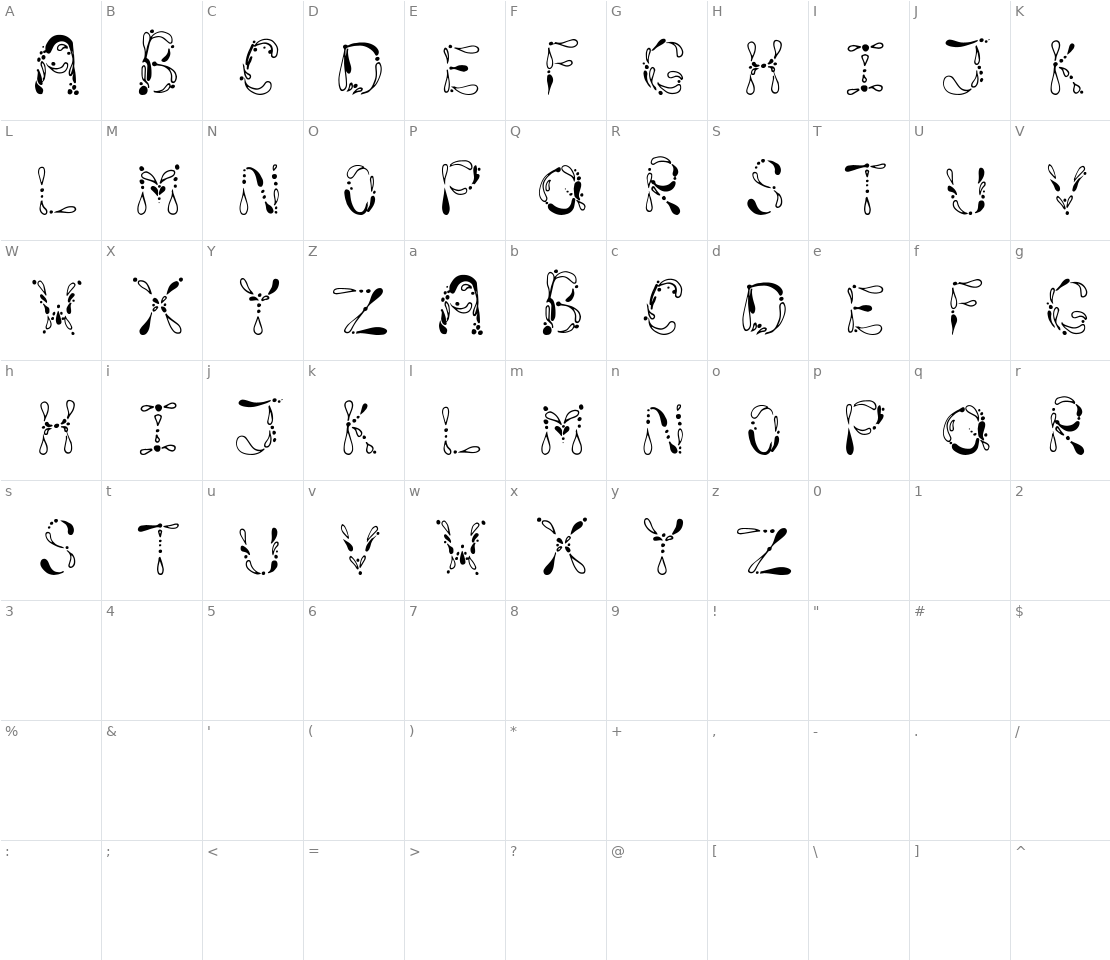
Lube Splash
Lube Splash is a novelty display face from Xerographer Fonts where every letterform looks like it's been formed from dripping, splattering liquid. The strokes pool and splash at their terminals, giving the whole alphabet a wet, gooey quality that's equal parts playful and weird. Best kept to headlines, posters, and packaging where you want something quirky and attention-grabbing that doesn't pretend to be serious.